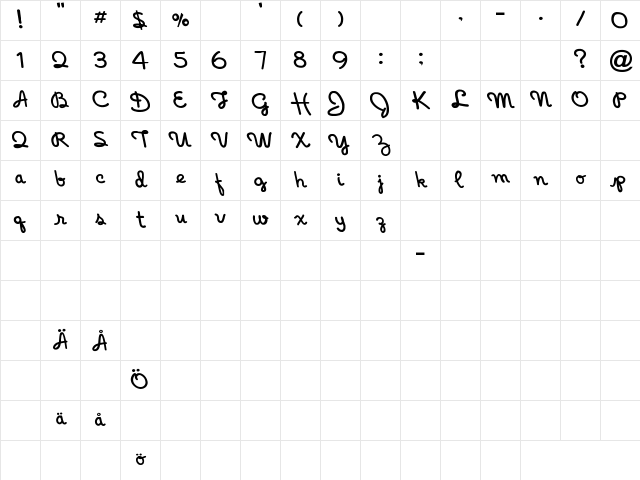
Holiday-India Regular
Holiday-India Family
Holiday-India Regular
Design Context for Holiday-India
Holiday-India is a composed and adaptable typeface that performs quietly and consistently across a wide range of design contexts.